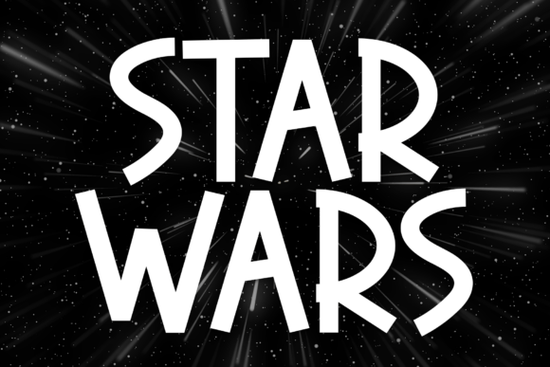
If you’ve ever wanted to add a little galactic flair to your designs, the Star Wars Font might be just what you’re looking for. It’s not officially licensed, of course, but it captures that bold, cinematic energy fans recognize instantly sharp angles, strong lines, and a futuristic vibe that works great on posters, t-shirts, party invites, or even social media graphics. Whether you're designing merch for a sci-fi convention or just having fun with themed crafts, this display font brings drama without being hard to use.
It pairs especially well with other display fonts like Dino Roar if you’re mixing themes (think “Jurassic meets Jedi”), or Vila Valent when you want something softer for contrast. You don’t need advanced design skills to make it work just drop it into Canva, Photoshop, or your favorite POD platform, and let the letters do the heavy lifting.
What kinds of projects does this font work best for?
This isn’t a font for body text or tiny labels. It’s built to grab attention. Think big:
- Event posters movie nights, comic cons, birthday parties with a space theme
- T-shirt and hoodie designs perfect for fan art or parody slogans
- Social media headers YouTube thumbnails, Instagram stories, Twitch overlays
- Print-on-demand products mugs, stickers, phone cases, tote bags
- DIY home decor wood signs, framed quotes, wall decals
Because of its thick strokes and angular shapes, it scales well even at smaller sizes on merch, it stays readable. Just avoid using it in all caps for long phrases; spacing can get tight. A few words? Perfect. A full paragraph? Not ideal.
How does it compare to other sci-fi or adventure-themed fonts?
Fonts like Emoren offer more of a fantasy edge think medieval banners and enchanted scrolls while Summer Vintage leans retro beachy. The Star Wars Font sits firmly in that action-packed, cinematic zone. If you’ve used Star Wars Font before, you’ll notice how it holds up better than free knockoffs cleaner curves, consistent weight, and proper kerning so your text doesn’t look clunky.
It also plays nicely with layered effects. Try adding a subtle glow, metallic texture, or laser-slice shadow in your design software. Even basic apps like PicMonkey or Photopea can give it extra dimension without much effort.
Any tips for pairing it with other fonts?
Avoid pairing it with anything too busy. Since the Star Wars Font already has strong personality, go simple for supporting text:
- Sans-serifs like Montserrat or Futura for clean contrast
- Monospaced fonts like Courier New for that “computer terminal” look
- Handwritten scripts sparingly only if they’re minimal and legible
You can also experiment with color. White or neon yellow on black gives that classic movie title effect. Red on gray feels more villainous. Teal or purple? Great for alien cantina vibes.
Where should I start if I’m new to display fonts?
Pick one project maybe a birthday invite or a quote graphic and try the font there first. See how it feels. Does it match the mood you want? Is it easy to read at the size you need? Once you’re comfortable, branch out. Try combining it with other display fonts from the same category to build themed bundles or seasonal collections.
And remember: less is often more. One dramatic headline in this font can carry your whole design. You don’t need to overdo it.